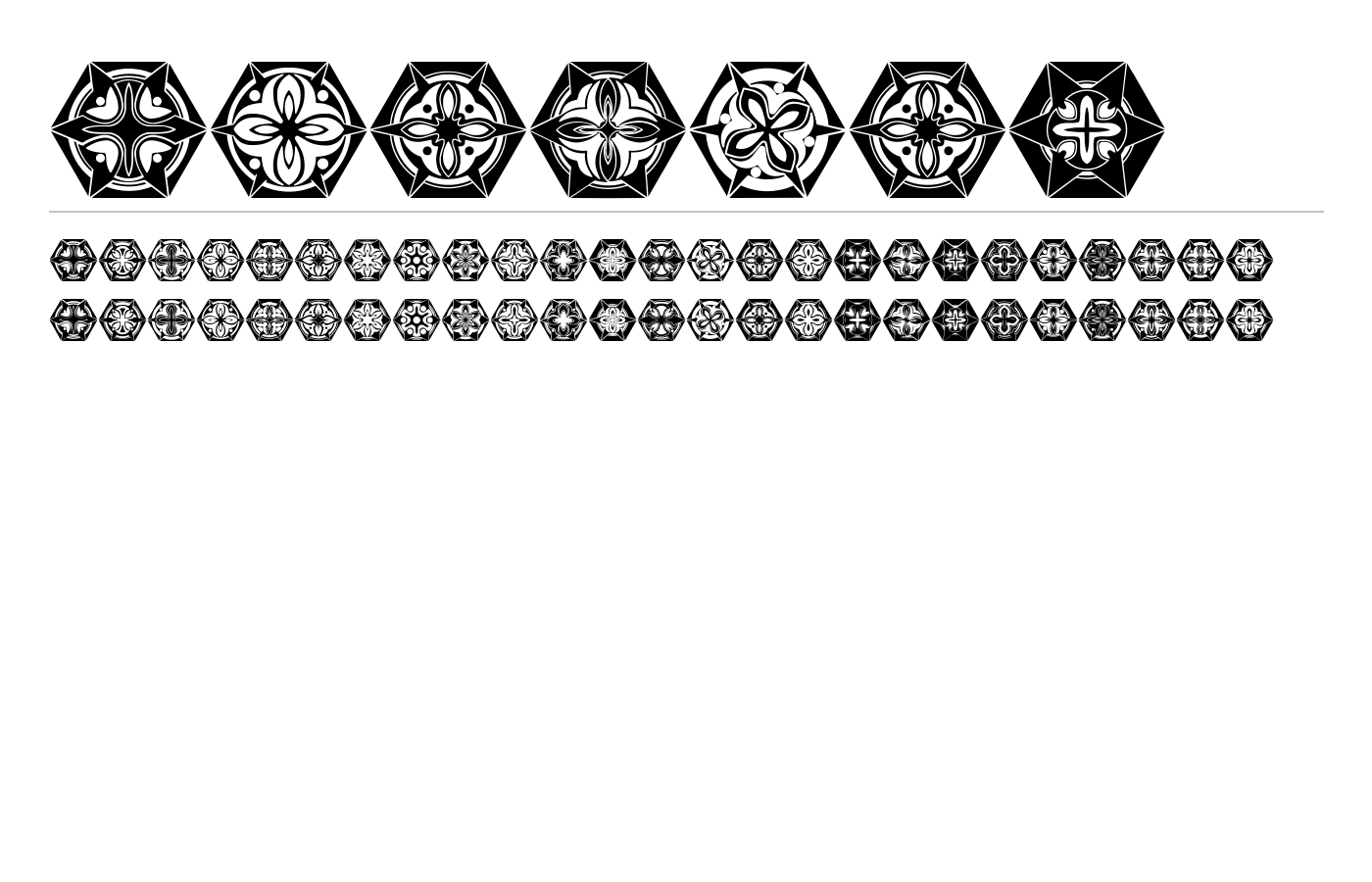
Adornos Font is a decorative, ornamental typeface featuring intricate, symmetrical hexagonal motifs that evoke a vintage, artistic flair. With its highly detailed and bold geometric shapes, this font is perfect for adding a unique, classical touch to logos, packaging, and display designs where a striking and elegant statement is desired. Its distinctive style shines best in creative branding and decorative headlines rather than body text, lending a sense of craftsmanship and luxury.
Adornos Font
About Adornos Font
| Font family | Adornos Font |